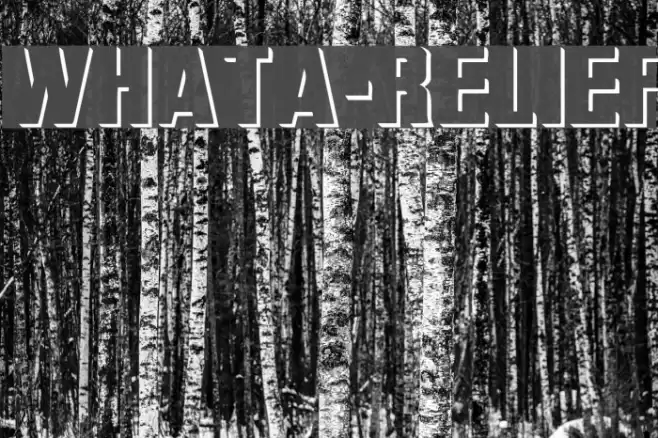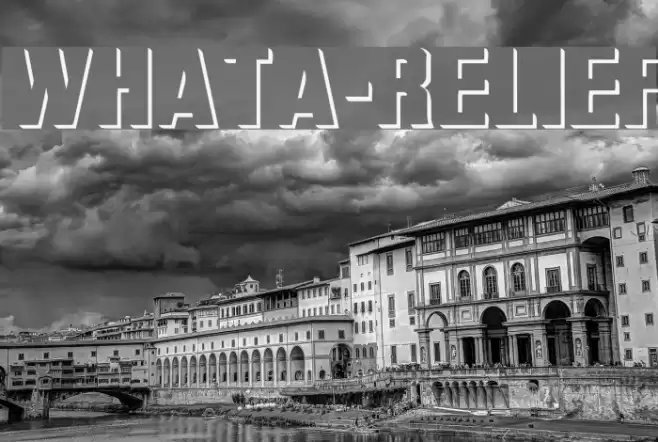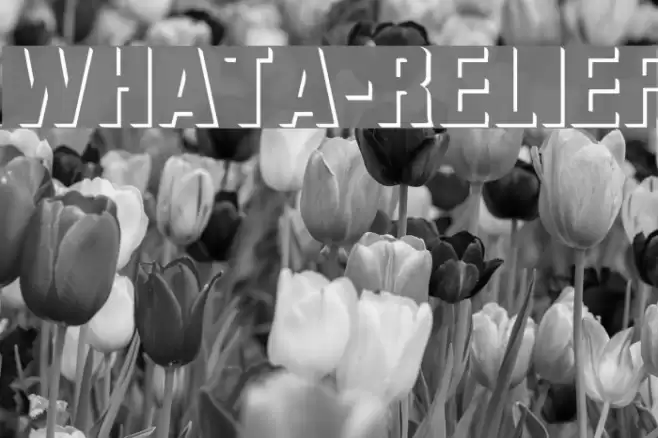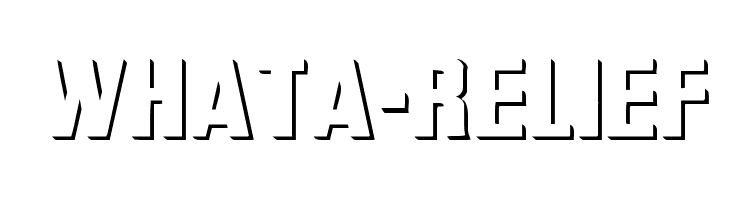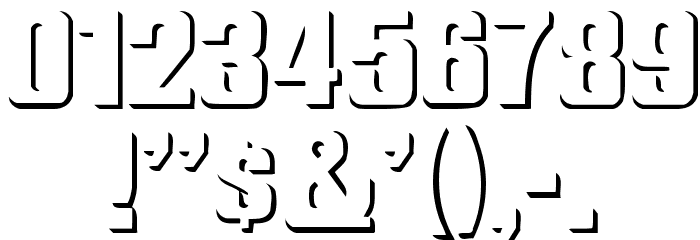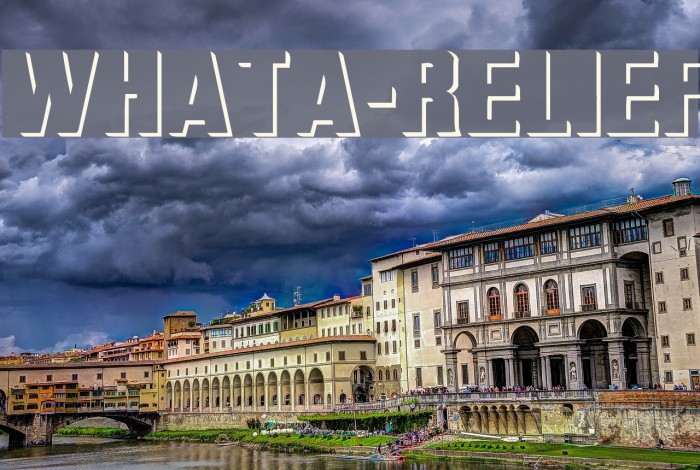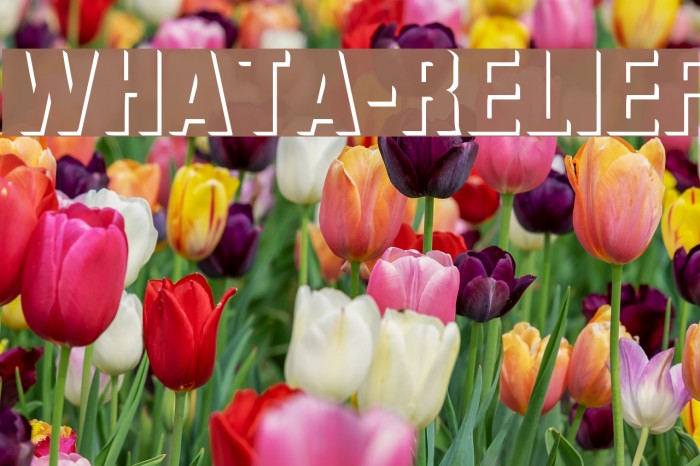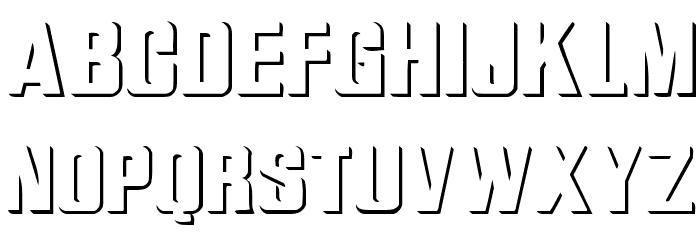
WhatA-Relief Font
WhatA-Relief Description
This font features a bold, three-dimensional effect with a shadow that gives it a striking, embossed appearance. The characters are uppercase and have a blocky, geometric structure, which is enhanced by the shadow that appears to lift them off the page. The font's design is clean and modern, with a uniform stroke width that maintains consistency across all characters. The shadow effect adds depth and a sense of movement, making it ideal for creating eye-catching headlines or titles. The spacing between characters is normal, ensuring readability while maintaining the bold impact of the design.
A bold, three-dimensional font with a shadow effect, ideal for impactful headlines from Uncategorized fonts.
- Proposed Projects: This font is perfect for projects that require a strong visual impact, such as posters, advertisements, and branding materials. Its unique style makes it suitable for modern and creative designs.